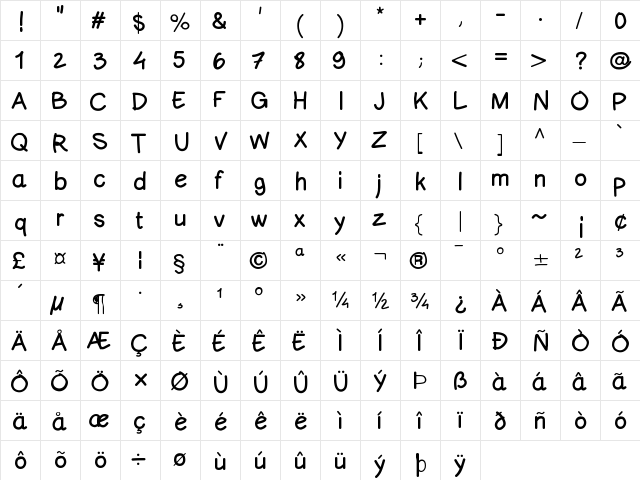
ComicNeueSansID Medium
Design Context for ComicNeueSansID Typeface
ComicNeueSansID has an approachable, lighthearted character — its loose, expressive forms are well-suited to children's content, casual branding, and fun-first design.
Font Pairing: Pairs well with a rounded or humanist sans for body copy, maintaining the friendly tone without relying on ComicNeueSansID to carry extended reading.
Pro Tip: Use ComicNeueSansID at larger display sizes where its expressive character can land. Pair with a clean, simple sans for body copy to maintain readability.